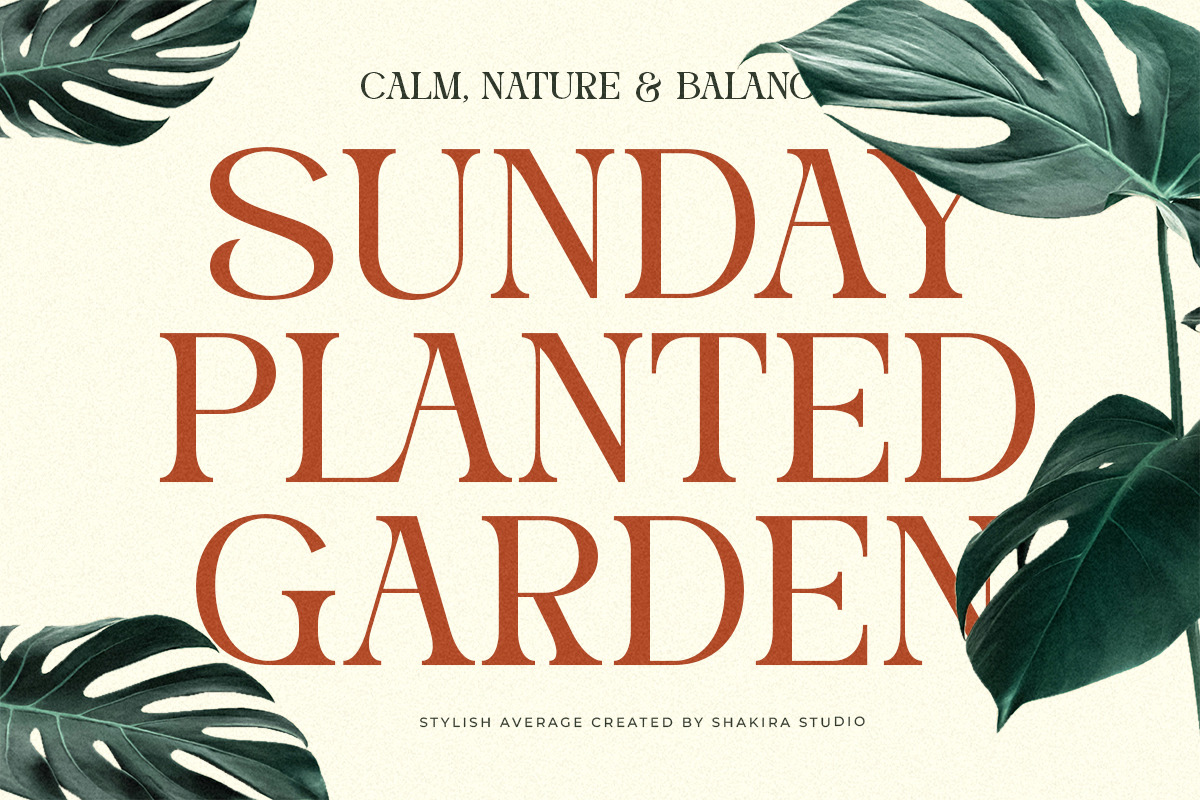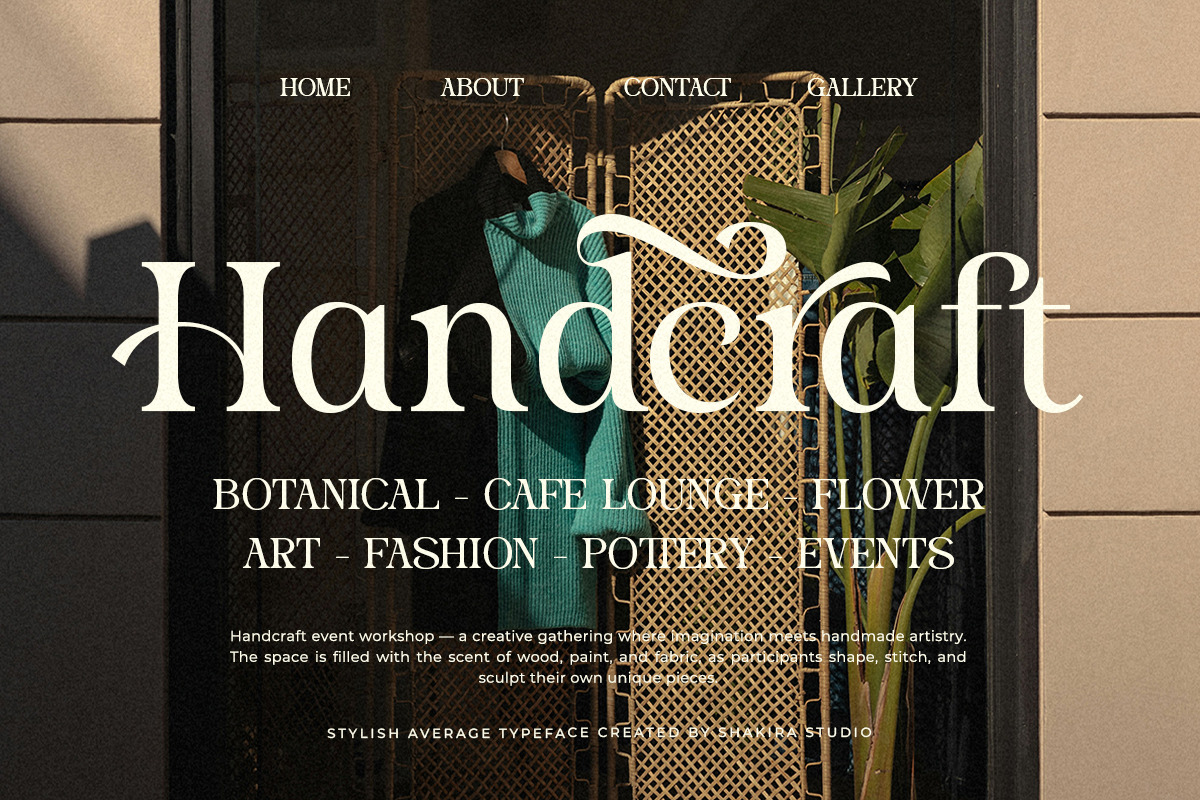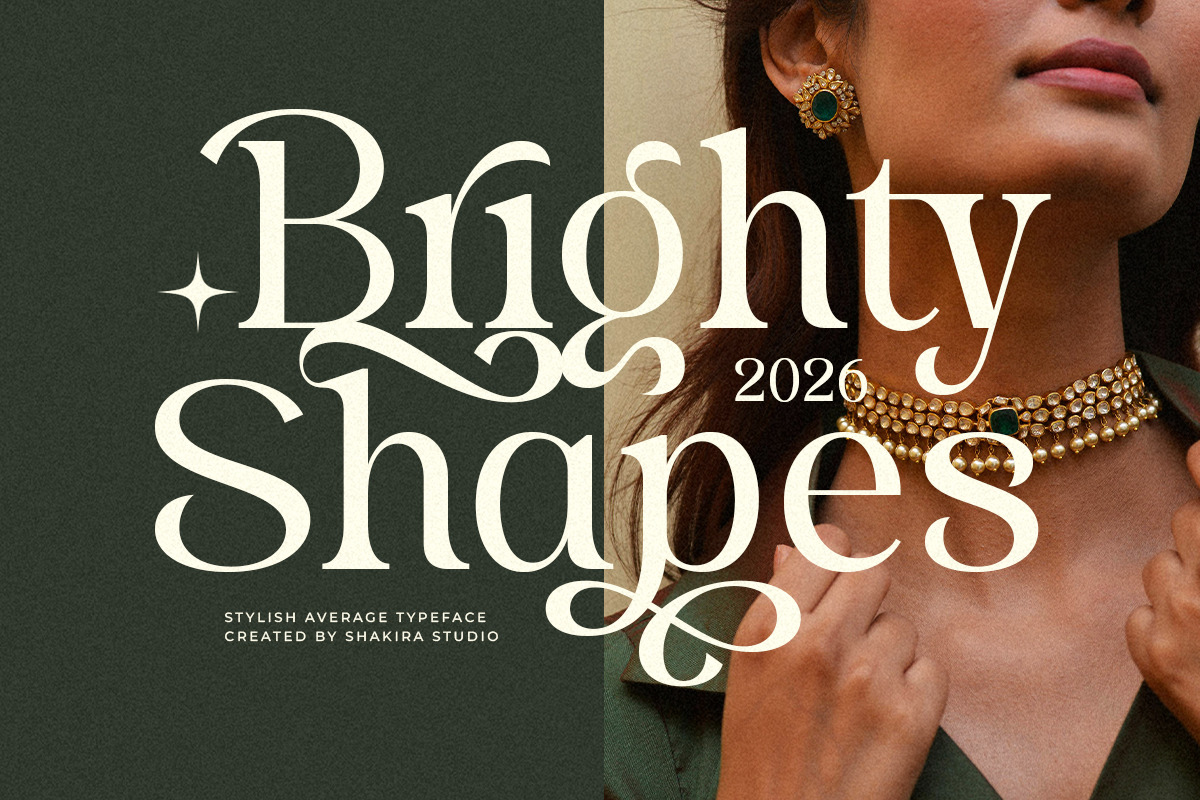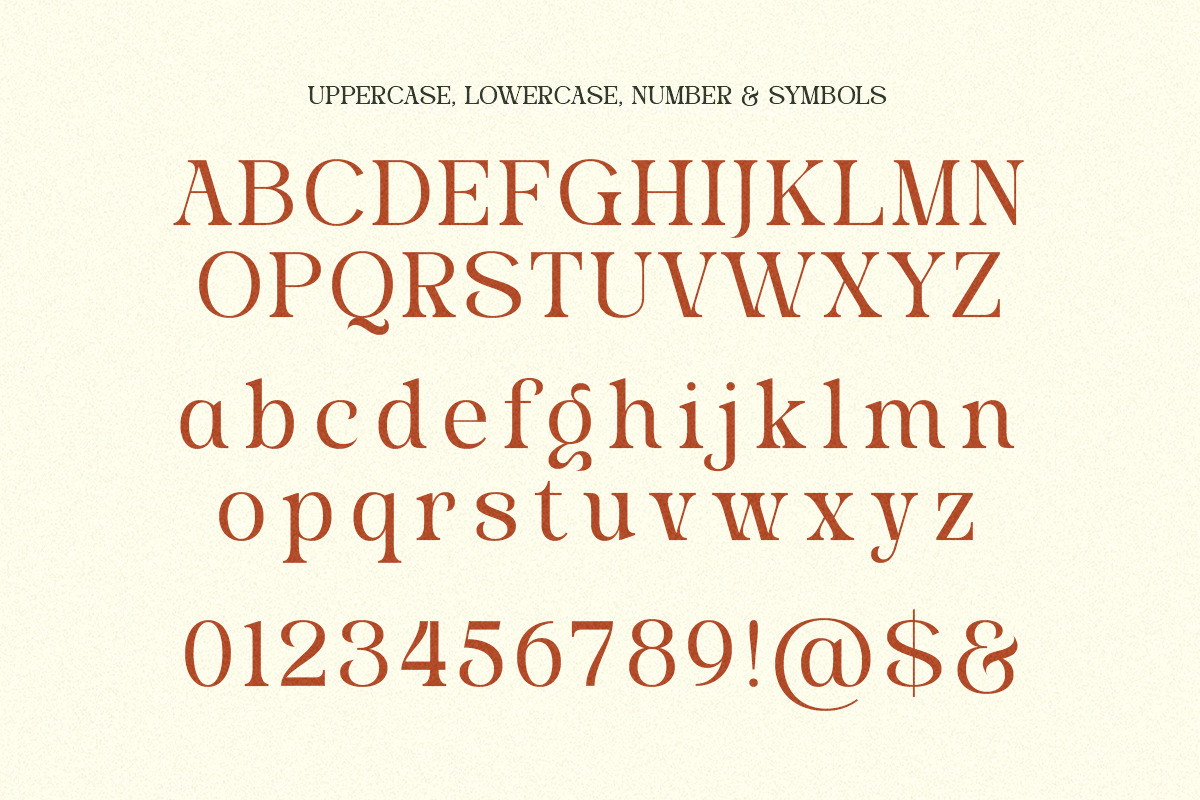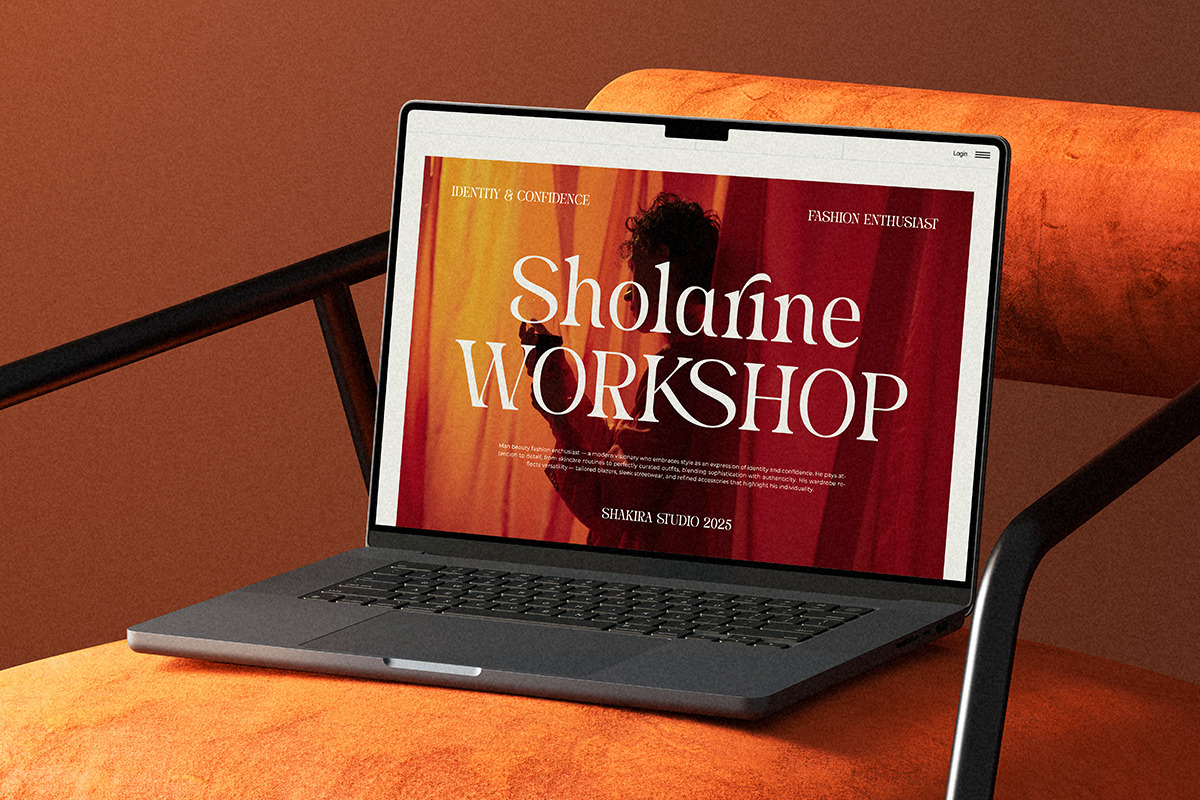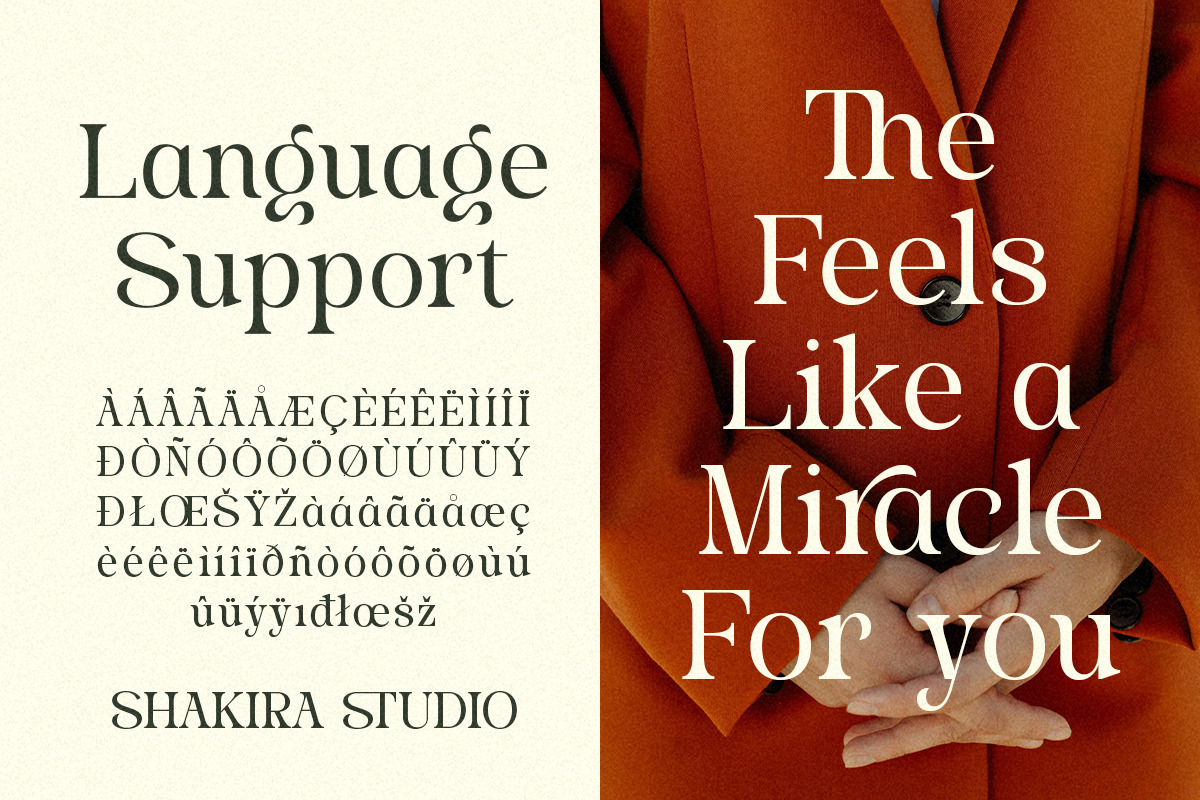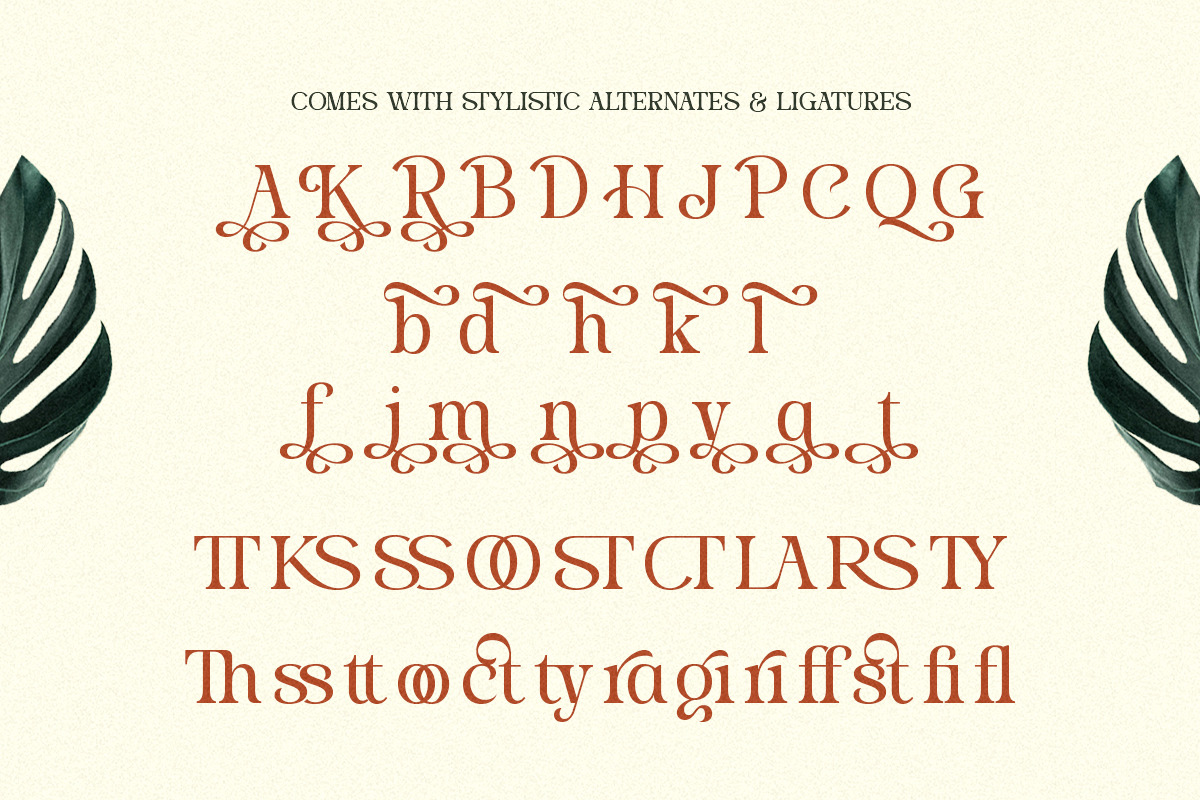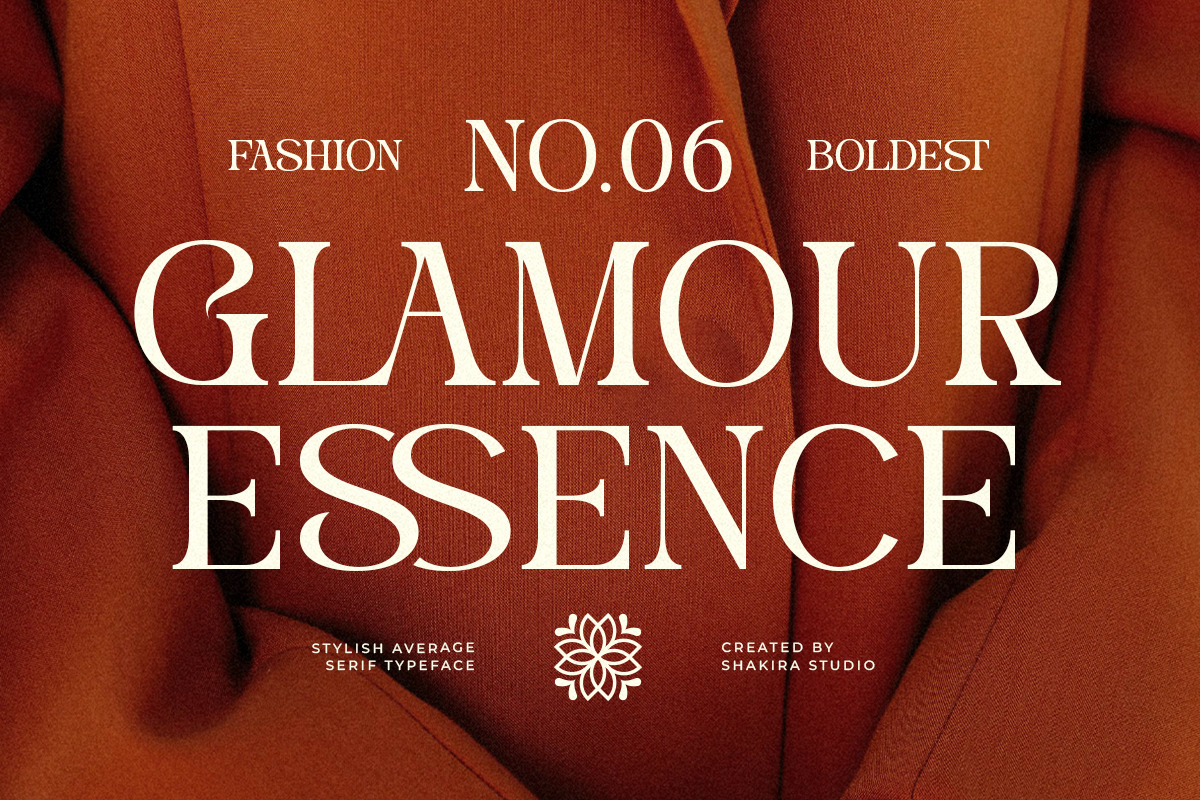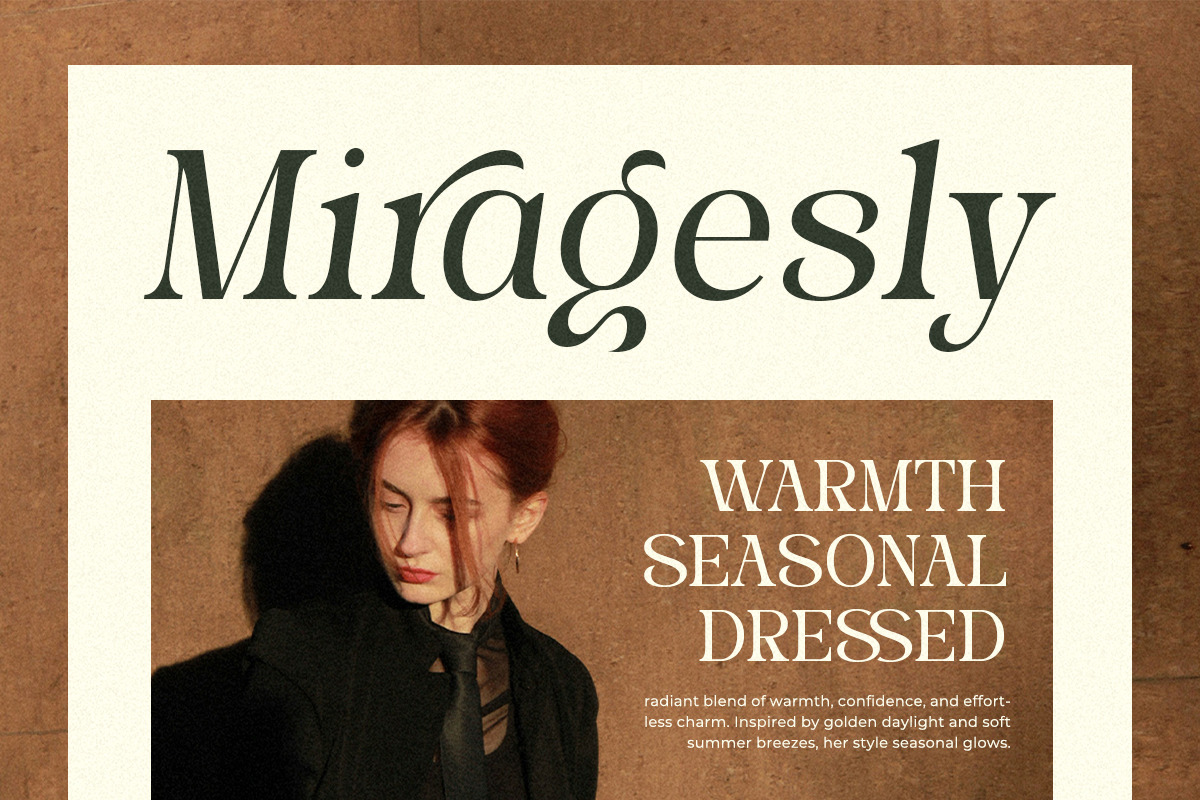
Stylish Average - Elegant Alternates
Introducing Stylish Average, a modern elegant serif crafted for fashion-forward branding and editorial design. Its refined curves and stylish ligatures create a sophisticated typographic presence perfect for premium visual identity.
Stylish Average brings timeless elegance with a contemporary feel, making it ideal for logos, magazines, beauty brands, packaging, and boutique identity systems.
Designed to deliver stylish luxury with professional readability.
- Regular & Italic
- Alternates & ligatures
- Professional kerning
- Elegant contrast letterforms
Fashion logos, beauty branding, magazine covers, boutique packaging, wedding stationery, luxury identity.